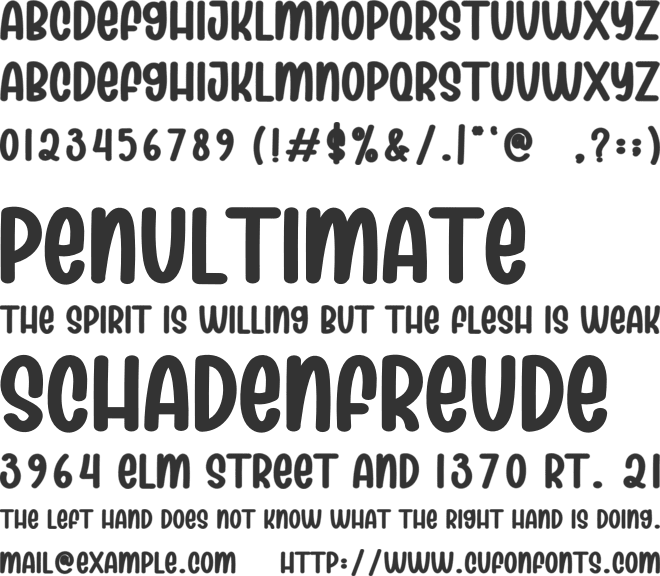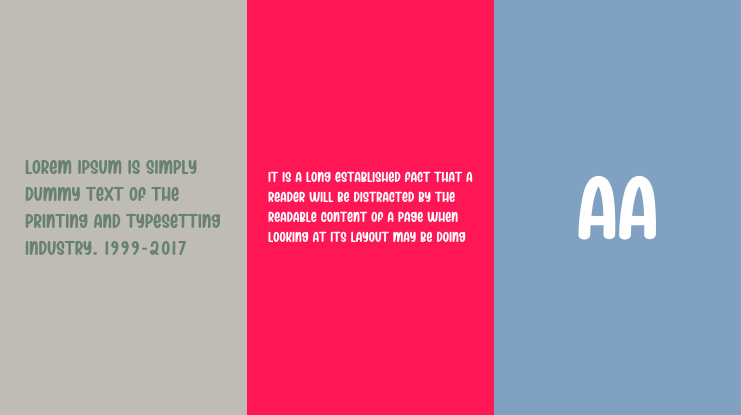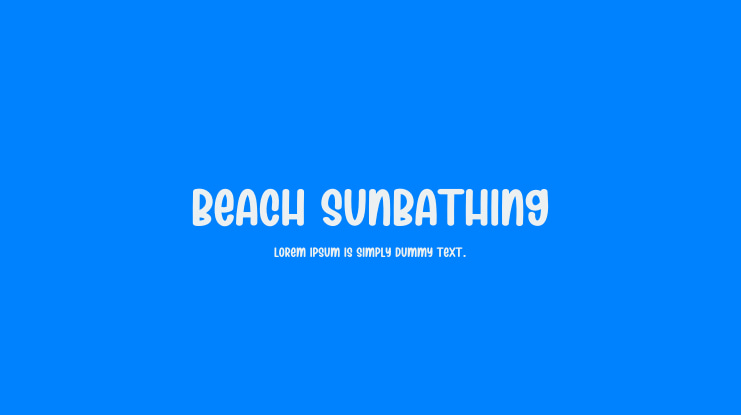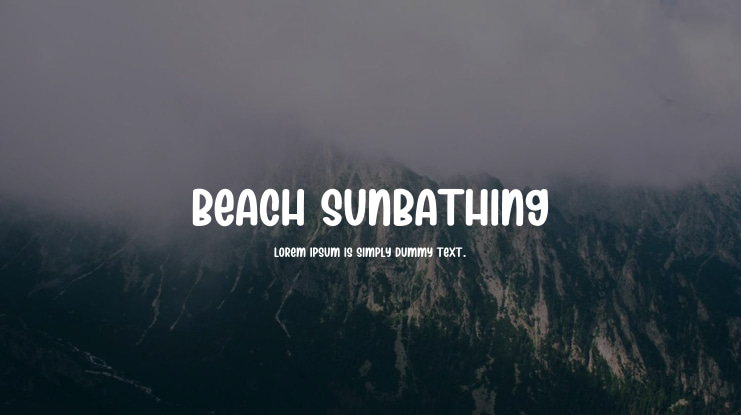
Beach Sunbathing Font
Details: Special creative products for you. Our products will give you an extraordinary experience. The latest style letters are perfect for wall displays, wedding invitations, social media post logos, advertisements, product packaging, product designs, labels, photography, watermarks, invitations, stationery, and any project that requires tasteful handwriting.